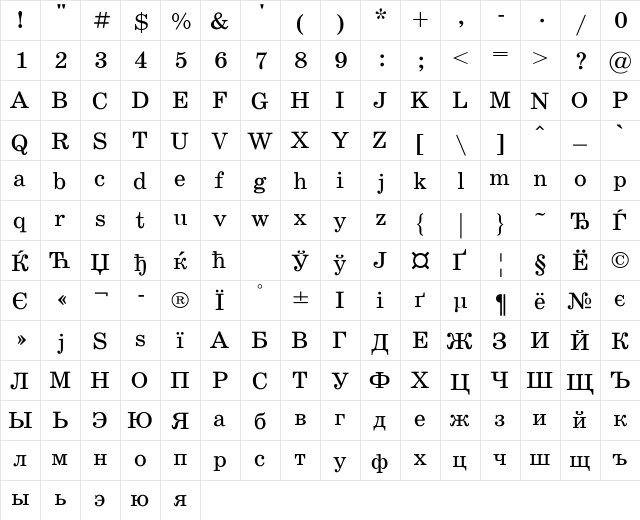
SchoolBookAC Regular
Design Context for SchoolBookAC Typeface
SchoolBookAC takes a measured approach to typography — its balanced proportions and neutral character make it a reliable workhorse for both digital and print work.